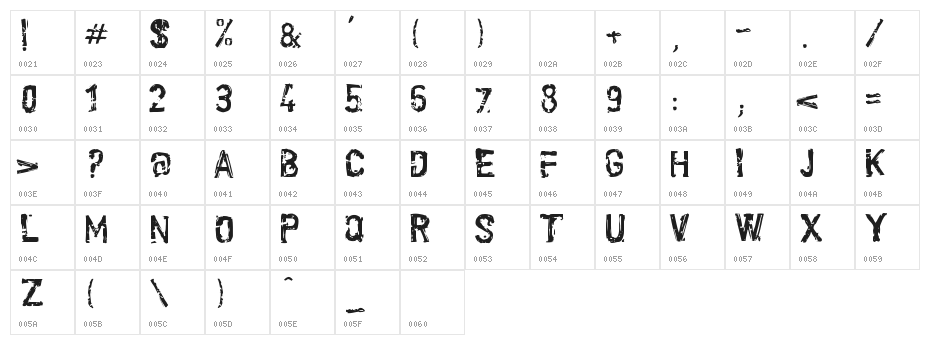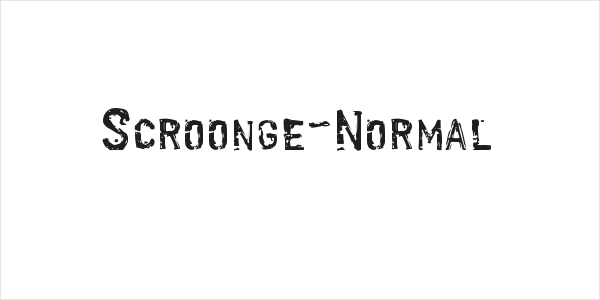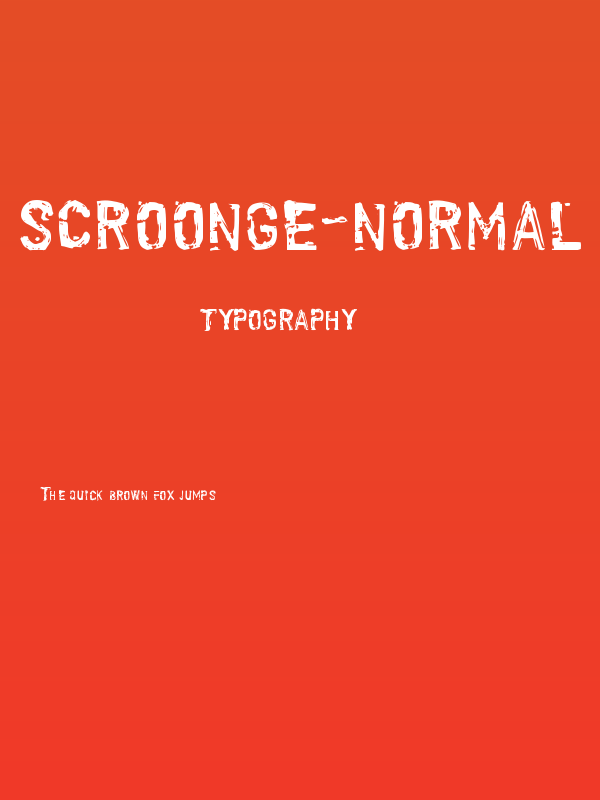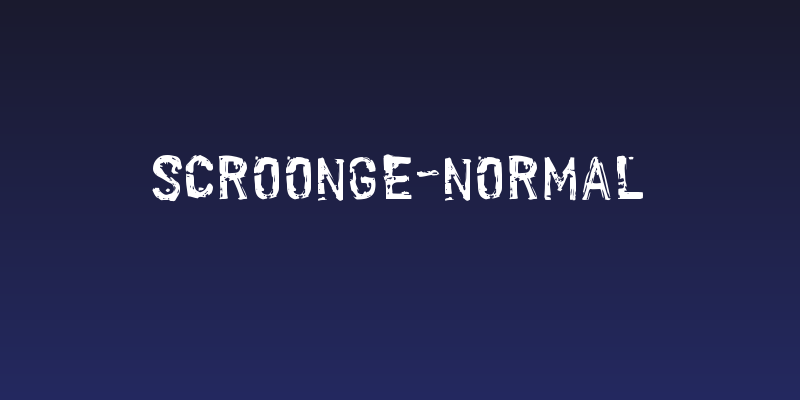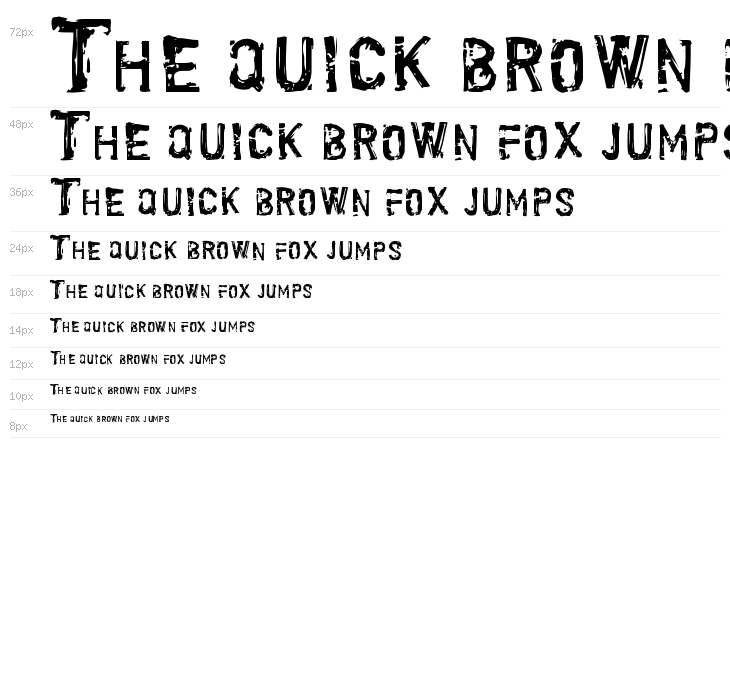
Scroonge-Normal Font
This font features a distressed, grunge style with a rough, textured appearance. The characters are bold and impactful, with irregular edges and a worn-out look that gives them a unique, vintage feel. The uppercase and lowercase letters maintain a consistent style, while the numbers and special characters follow the same rugged design. This font is ideal for projects that require a bold statement or an edgy, urban aesthetic. Its distinctive appearance makes it suitable for creative designs that aim to capture attention and convey a sense of rawness or authenticity.
| Overall Style | Grunge, Vintage |
| Proposed Projects | Ideal for posters, album covers, streetwear branding, and urban-themed designs. |